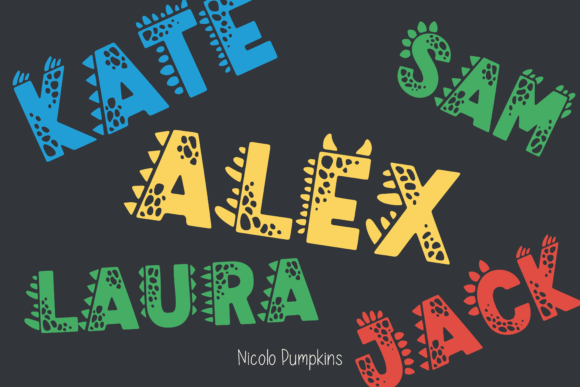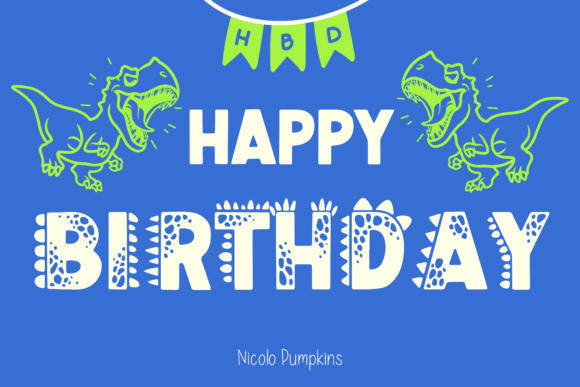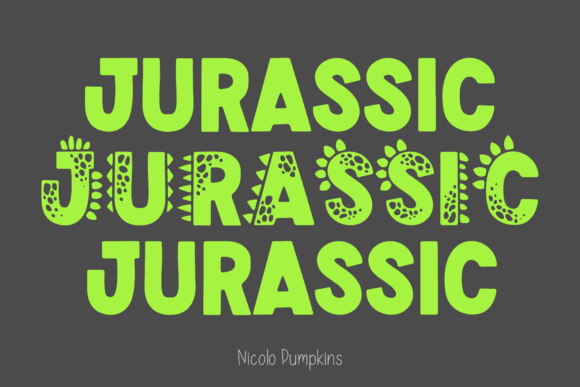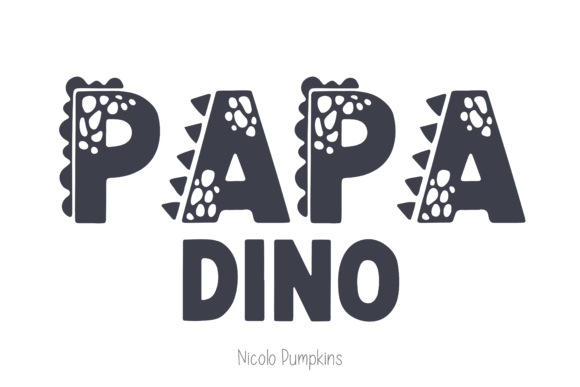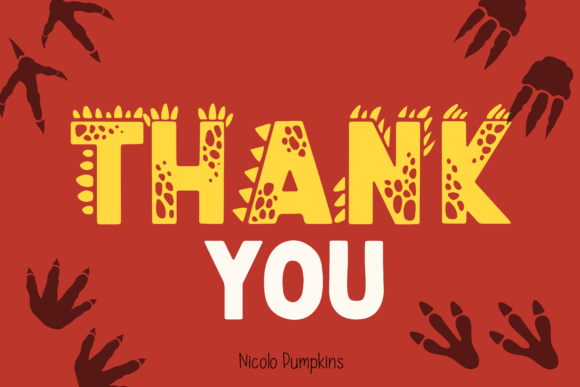
Dino PARK is a cute dinosaur display font suitable for designing T-shirts, tote bags, hats, stickers, wedding invitations, logos, cards, quotes, and more! This font is perfect for kids’ and teens’ designs but at the same time, it is also great for family designs.
Dino Park Font